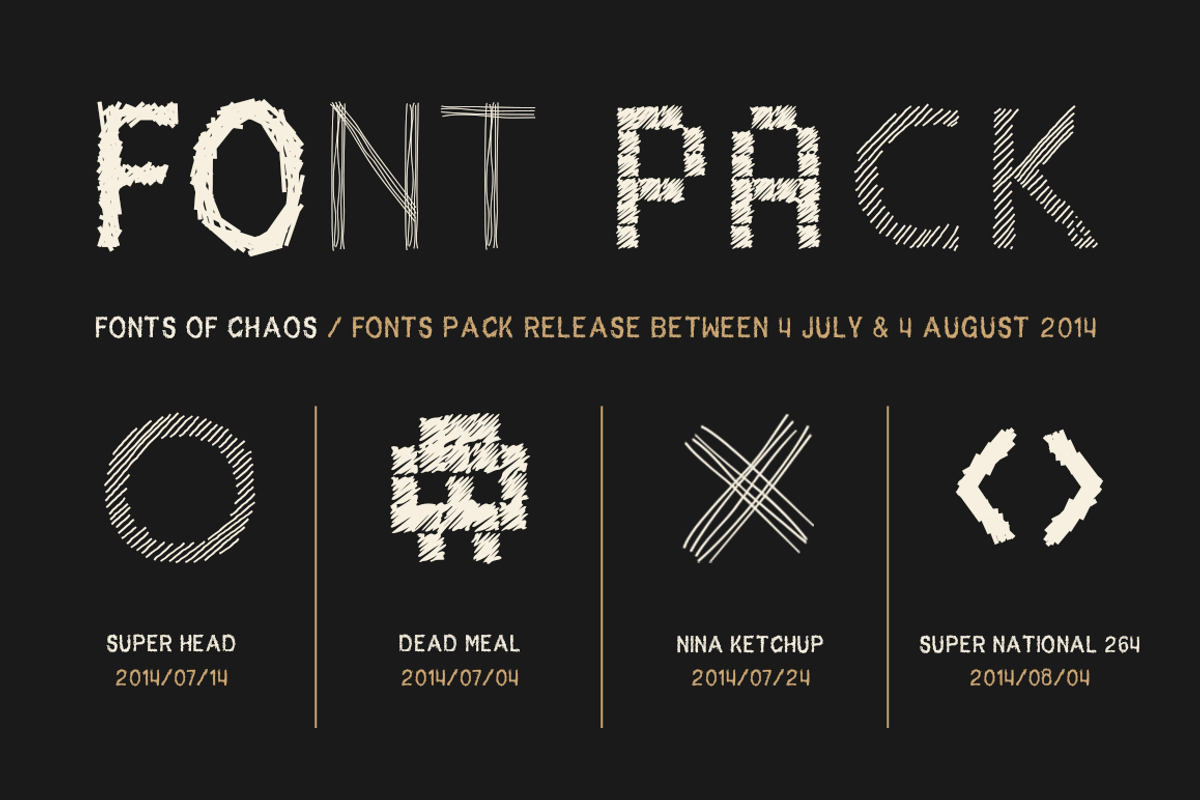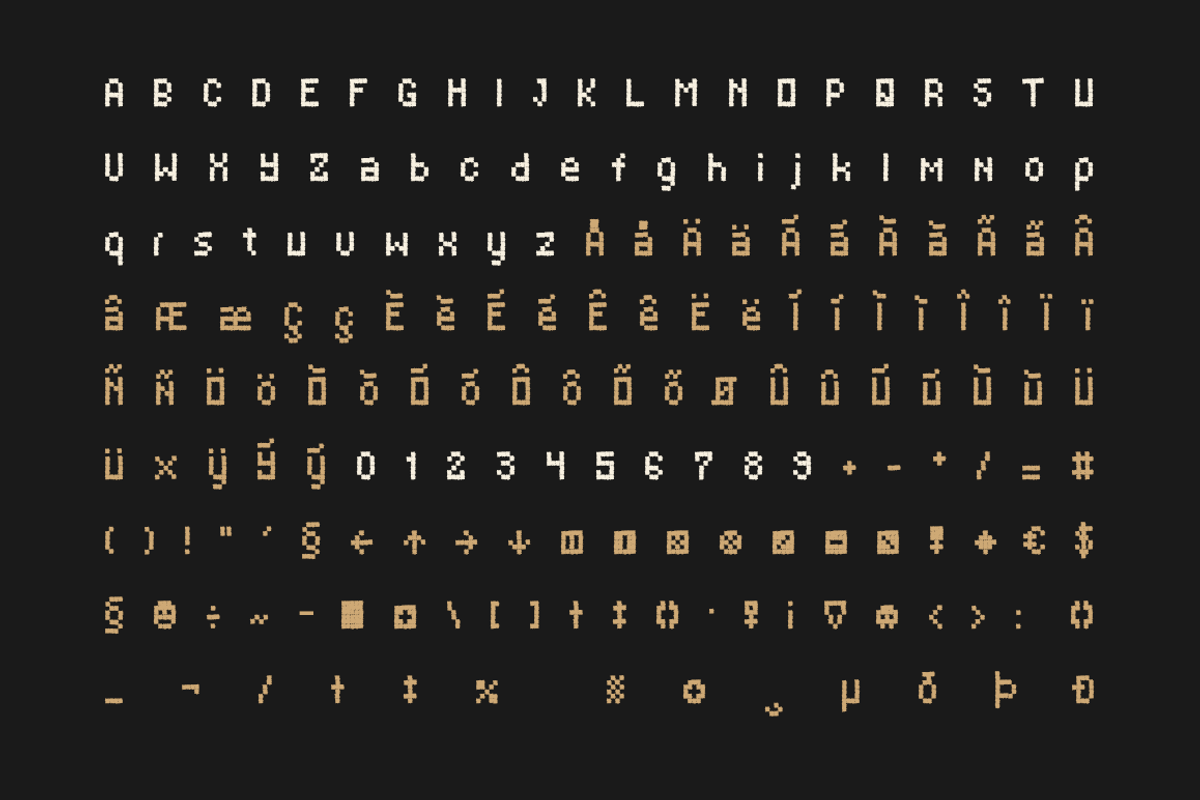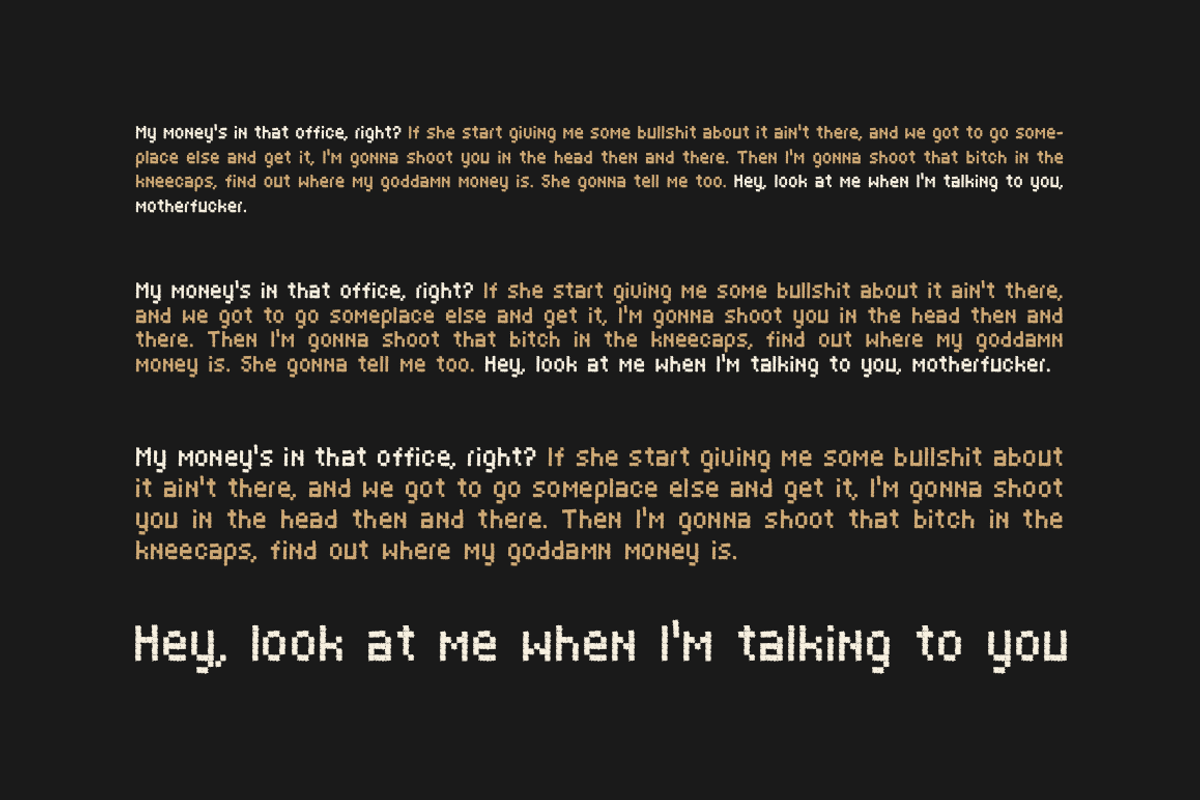
Dead Meal - Hand Drawn Pixel Font.
Dead Meal - Hand Drawn Pixel Font. by David is Creative is a font selected for branding, posters, packaging, typography.
- Complete with 195 characters + special symbols like emoticon, skull, and more.
Why Dead Meal - Hand Drawn Pixel Font. is worth a look
Dead Meal - Hand Drawn Pixel Font. by David is Creative fits naturally into Branding, posters, packaging, typography.